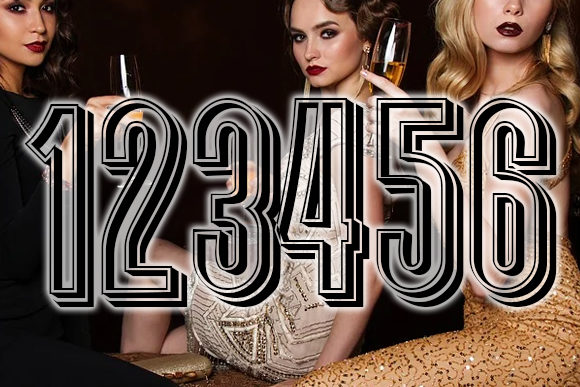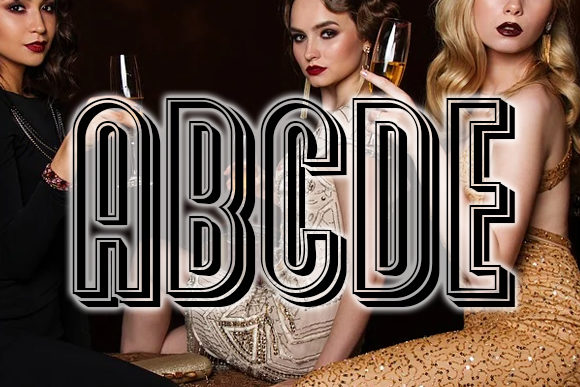
Unleash Your Creativity with Dama Font: A Sharp and Assertive Display Font
Are you tired of using the same old fonts for your designs? Do you want to add a touch of uniqueness and style to your work? Look no further than Dama Font, a bold and assertive display font that is sure to inspire your creativity. In this article, we’ll explore the features and benefits of Dama Font, and show you how to make the most of its endless possibilities.
What is Dama Font?
Dama Font is a display font designed to make a statement. With its sharp and clean lines, it’s perfect for designers and crafters who want to add a touch of sophistication and elegance to their work. Whether you’re creating a logo, poster, or social media graphic, Dama Font is sure to turn heads.
Key Features of Dama Font
- Assertive and Sharp-Looking: Dama Font is designed to be bold and eye-catching, making it perfect for display purposes.
- Clean and Elegant: The font’s clean lines and elegant curves make it perfect for designs that require a touch of sophistication.
- Highly Versatile: Dama Font can be used for a wide range of designs, from logos and posters to social media graphics and more.
- Easy to Read: Despite its bold and assertive nature, Dama Font is easy to read, making it perfect for designs that require a clear and concise message.
Benefits of Using Dama Font
So why should you choose Dama Font for your designs? Here are just a few benefits of using this amazing font:
- Adds a Touch of Uniqueness: Dama Font is a unique and distinctive font that will set your designs apart from the crowd.
- Increases Visual Impact: The font’s bold and assertive nature makes it perfect for designs that require a strong visual impact.
- Perfect for Display Purposes: Dama Font is designed specifically for display purposes, making it perfect for logos, posters, and other eye-catching designs.
- Easy to Pair with Other Fonts: Dama Font is highly versatile and can be easily paired with other fonts to create a unique and cohesive look.
Endless Possibilities with Dama Font
So what can you create with Dama Font? The possibilities are endless! Here are a few ideas to get you started:
- Logos and Branding: Use Dama Font to create a bold and assertive logo that will make your brand stand out.
- Posters and Flyers: Create eye-catching posters and flyers that will grab attention and leave a lasting impression.
- Social Media Graphics: Use Dama Font to create social media graphics that will help you stand out in a crowded feed.
- Packaging and Product Design: Add a touch of elegance and sophistication to your packaging and product designs with Dama Font.
Tips for Using Dama Font
Here are a few tips for getting the most out of Dama Font:
- Use it for Display Purposes: Dama Font is designed specifically for display purposes, so use it to make a statement.
- Experiment with Different Sizes: Dama Font looks great in a variety of sizes, so experiment to find the perfect size for your design.
- Pair it with Other Fonts: Dama Font is highly versatile and can be easily paired with other fonts to create a unique and cohesive look.
- Don’t be Afraid to Get Creative: Dama Font is a versatile font that can be used in a wide range of designs, so don’t be afraid to get creative and try new things.
In conclusion, Dama Font is a sharp and assertive display font that is sure to inspire your creativity. With its clean lines, elegant curves, and highly versatile nature, it’s perfect for designers and crafters who want to add a touch of uniqueness and style to their work. So why wait? Download Dama Font today and explore its endless possibilities!